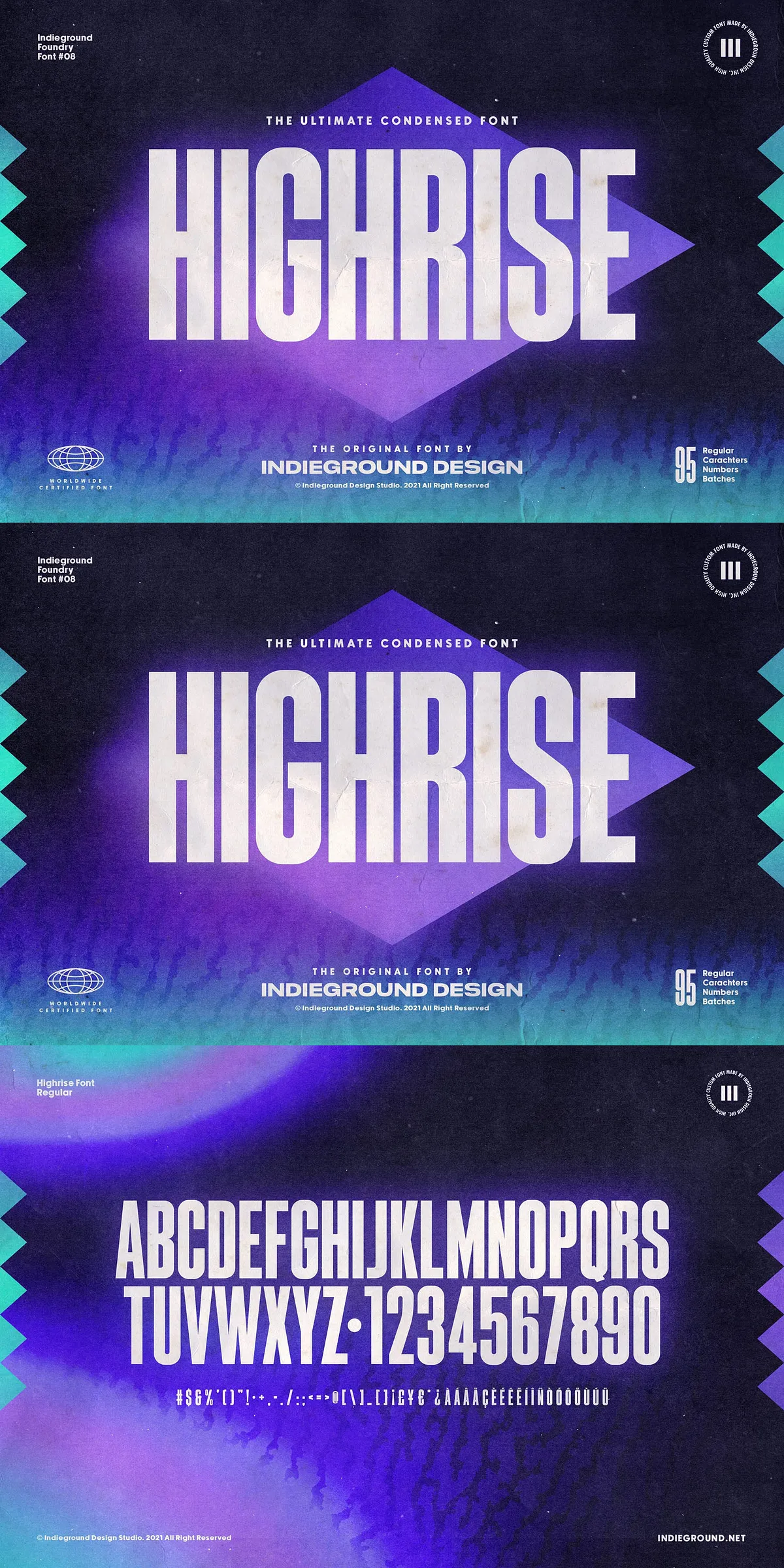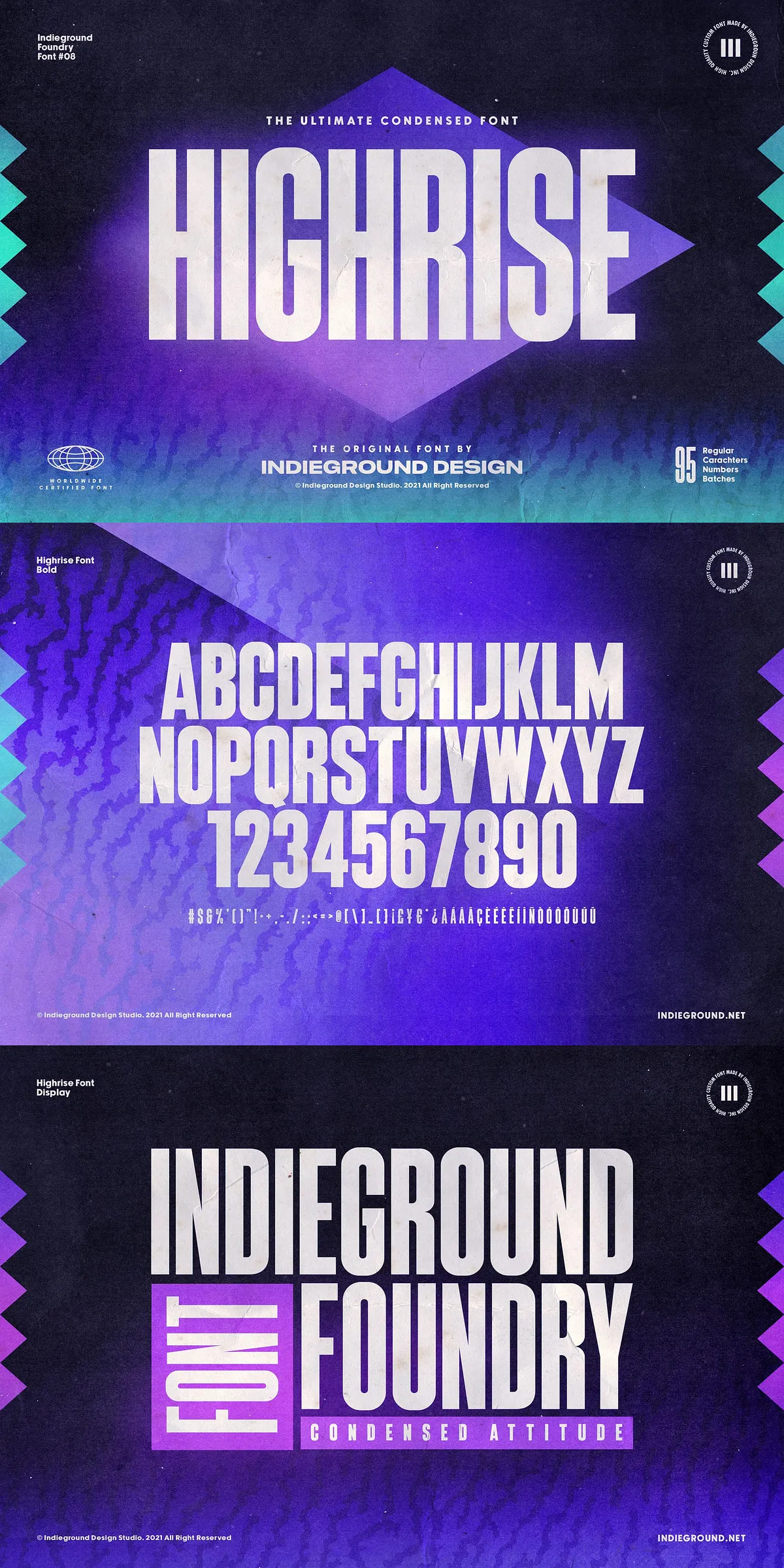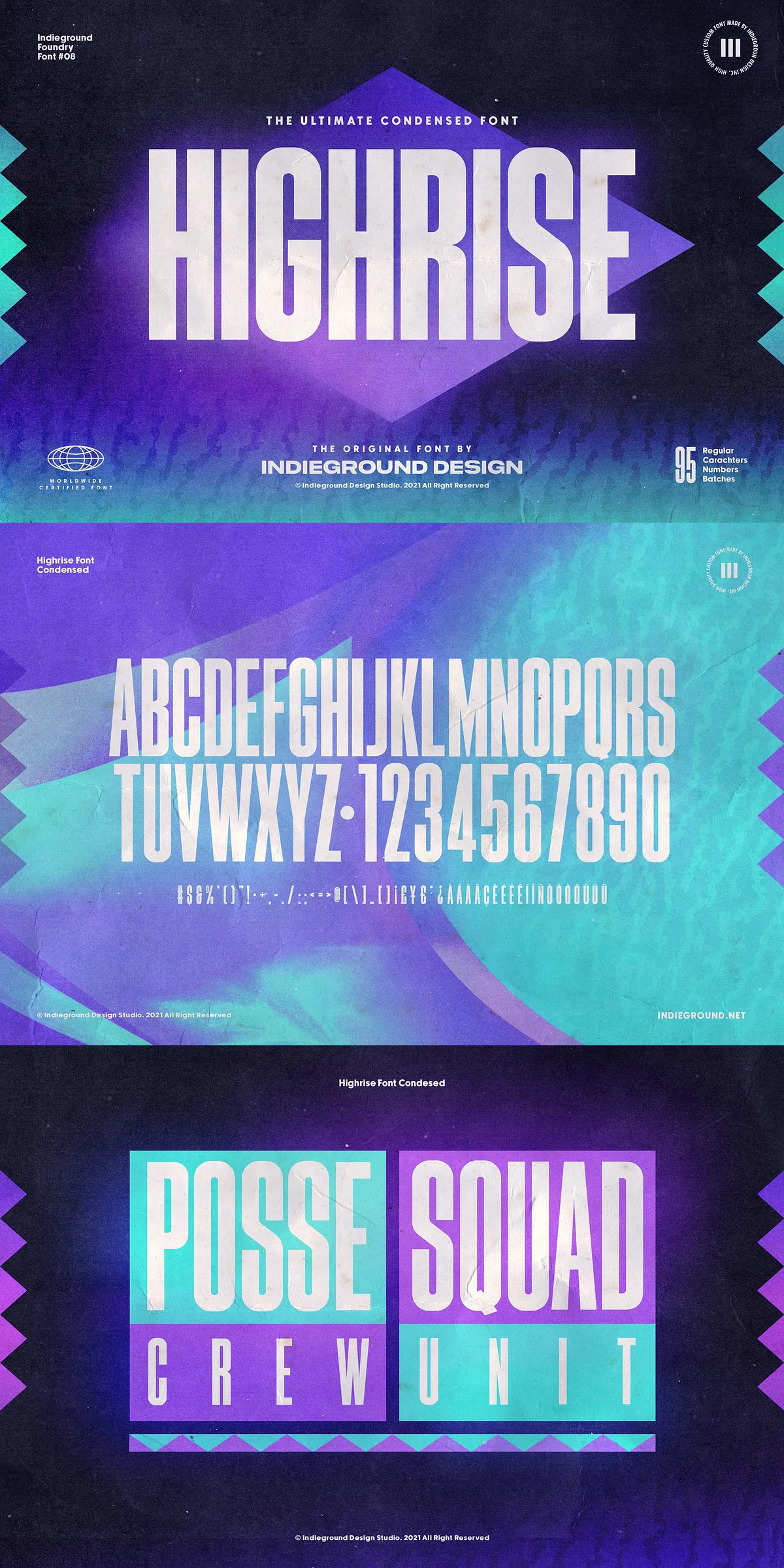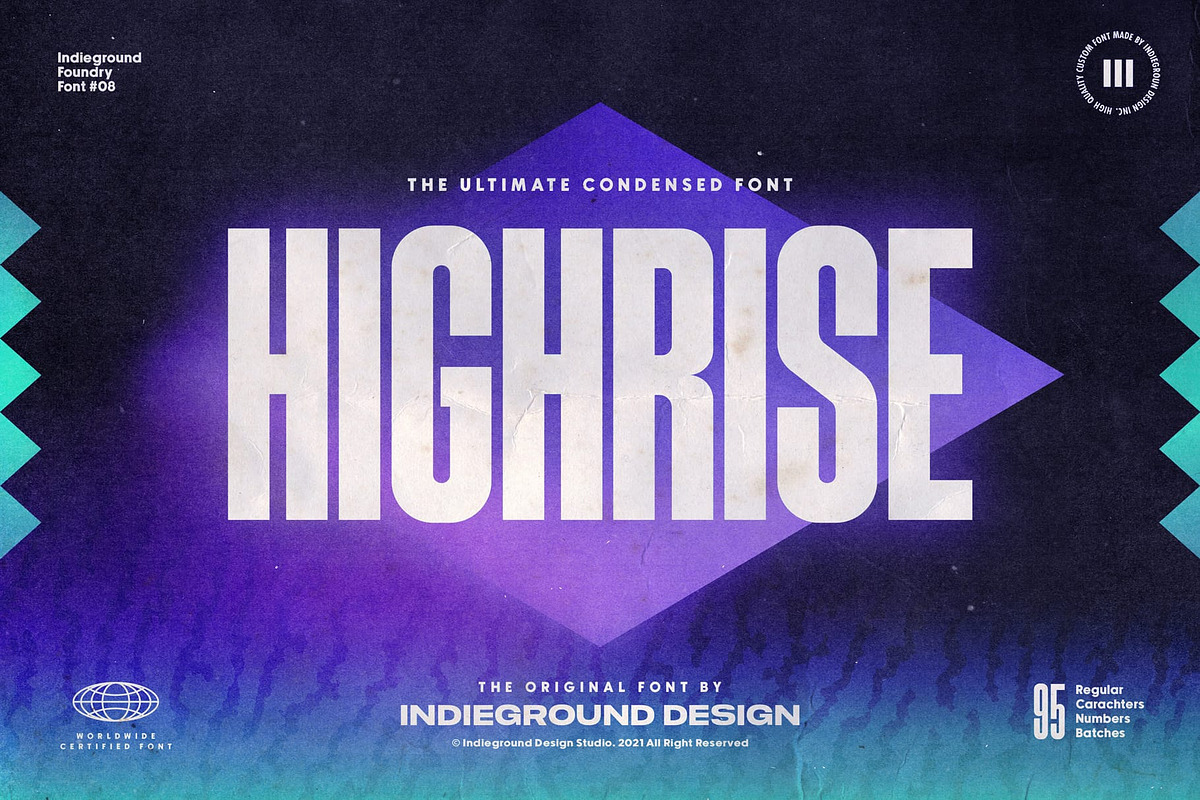
Unleash visual impact with Highrise Font, a striking condensed display typeface crafted by the Indieground Team. Designed for maximum presence, Highrise transforms your headlines, logos, and artistic compositions into bold statements that demand attention. Whether you’re working on retro-inspired art, sleek modern branding, or high-energy editorial layouts, Highrise delivers a powerful aesthetic that’s both minimalist and fiercely impactful.
Engineered for Impact: Three Heavy Condensed Weights, One Powerful Voice
Highrise isn’t just bold — it’s *built* for impact. The font family includes three distinct condensed weights, each designed to dominate the visual hierarchy while maintaining clarity and style:
- Highrise Light – Perfect for refined, minimal headlines that still make a statement.
- Highrise Regular – The ideal foundation for balanced, confident design.
- Highrise Heavy – A commanding presence for final, unforgettable declarations.
Each weight is meticulously crafted to maintain sharpness and readability even at small sizes, ensuring your typography remains legible and powerful across print, screen, and signage.
Minimal Atmosphere, Maximum Style: The Aesthetic of Modern Boldness
Highrise’s design philosophy centers on clarity, strength, and restraint. Its tight letter spacing and uniform stroke architecture create a sense of cohesion and intensity. This minimal atmosphere doesn’t sacrifice personality — it amplifies it. The result? A font that feels both contemporary and timeless, effortlessly fitting into retro projects or cutting-edge modern campaigns.
- Retro projects – Evokes the boldness of vintage posters, arcade signage, and film titles.
- Modern branding – Ideal for luxury products, tech startups, and high-end labels where authority matters.
- Graphic design & print – Elevates posters, packaging, flyers, and album covers with instant credibility.
Creative Applications: Where Highrise Shines
Highrise is a versatile powerhouse across creative industries. Here’s where it truly excels:
Headlines & Logos
Turn ordinary slogans into legendary taglines. Its condensed form maximizes visual density, letting you fit powerful messages into minimal space — perfect for website banners, app icons, and product branding.
Posters & Print Media
Create instant visual dominance. Highrise ensures your message stands out on walls, magazines, and billboards. The boldness cuts through distraction and captures focus.
Digital & UI Typography
Use Highrise in buttons, navigation headers, or splash screens to add instant energy. Its crisp geometry scales seamlessly across devices, ensuring your design remains sharp on every screen.
Music & Entertainment Visuals
Perfect for album covers, concert posters, and music video titles. It brings the same iconic style seen in 80s synthwave, modern indie films, and high-concept advertising campaigns.
- Highrise Light – For subtle yet powerful emphasis.
- Highrise Regular – The workhorse of the family.
- Highrise Heavy – For maximum visual dominance.
- Full character set – Includes uppercase and lowercase Latin letters, numbers, punctuation, and special symbols.
Design Tips: Maximizing Highrise’s Bold Potential
- Use in contrast – Pair Highrise with a simple sans-serif or serif for body text to let the headline shine.
- Limit color palette – One bold color or black-and-white contrast enhances its structural strength.
- Control spacing – Use letter spacing or tracking to fine-tune readability and impact.
- Embrace negative space – Let Highrise breathe on the page — minimalism amplifies its boldness.
Design with Authority. Speak with Strength.
Highrise Font isn’t just a typeface — it’s a visual declaration. It gives you the tools to design with confidence, communicate with power, and create work that leaves a lasting impression. Choose Highrise when you’re not just designing — you’re making a statement. This is typography that doesn’t blend in — it defines the space it occupies.